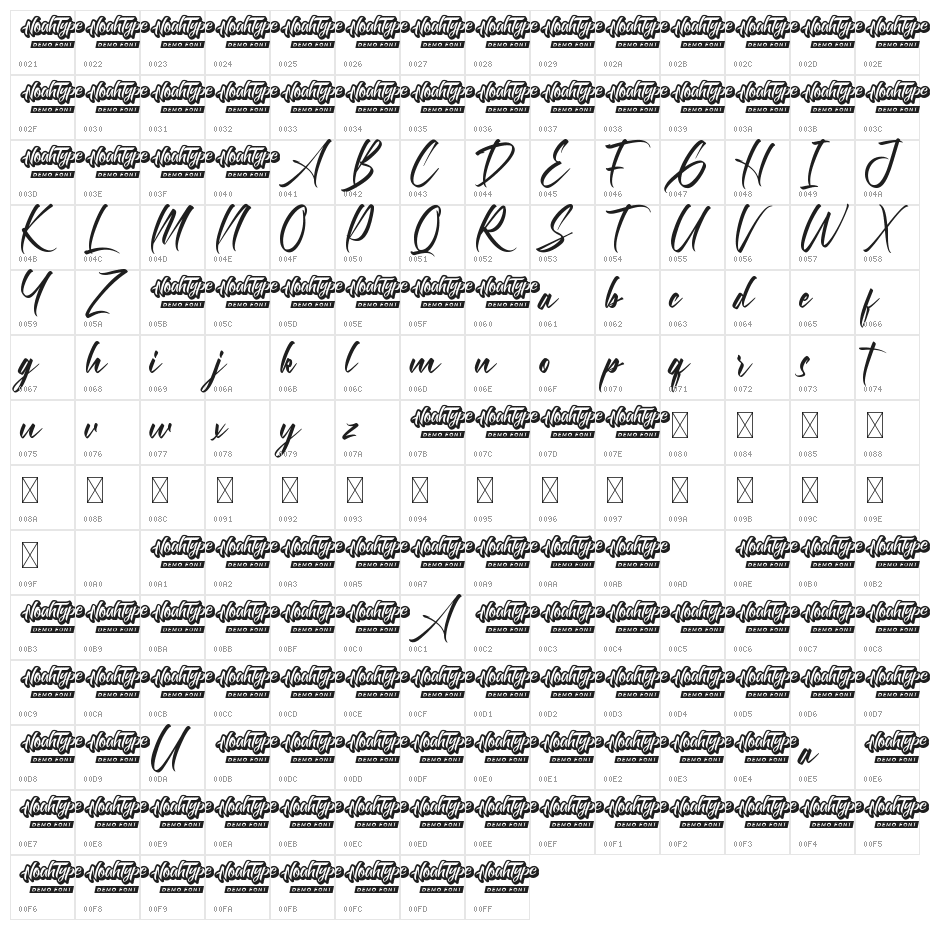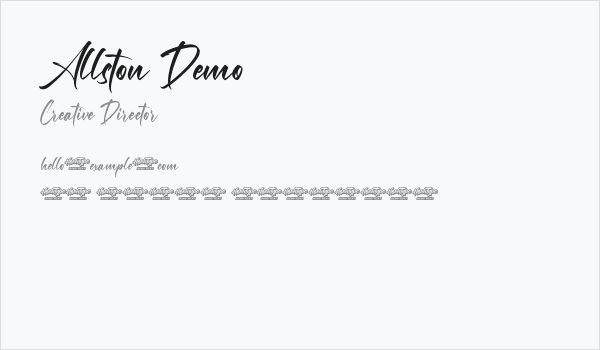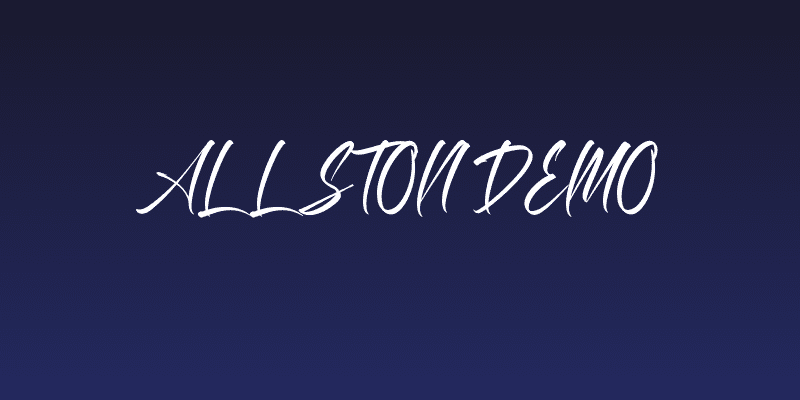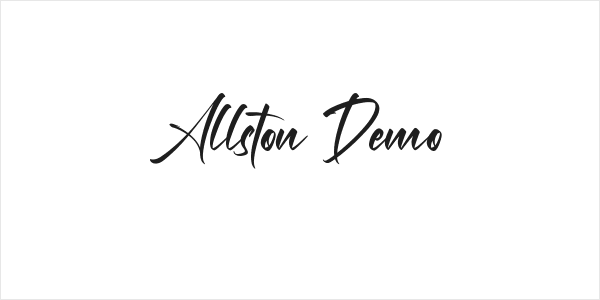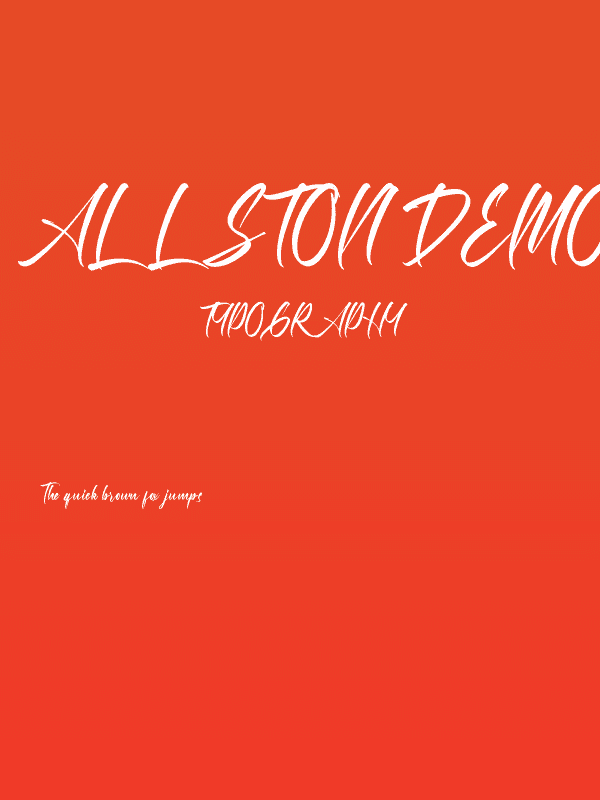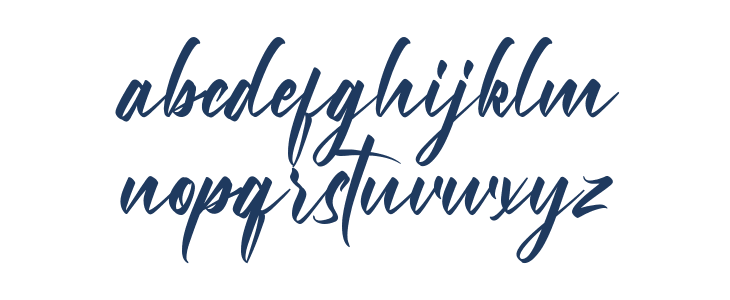
Allston Demo Font
Allston Demo Description
This font features a dynamic and expressive script style, characterized by its fluid and cursive letterforms. The strokes are bold and sweeping, with a natural flow that mimics the motion of handwriting. Each character is distinct, with varying thickness in the strokes that add a lively and energetic feel. The uppercase letters are particularly striking, with elongated and elegant lines, while the lowercase letters maintain a consistent rhythm and balance. This font exudes a sense of creativity and spontaneity, making it ideal for projects that require a personal touch.